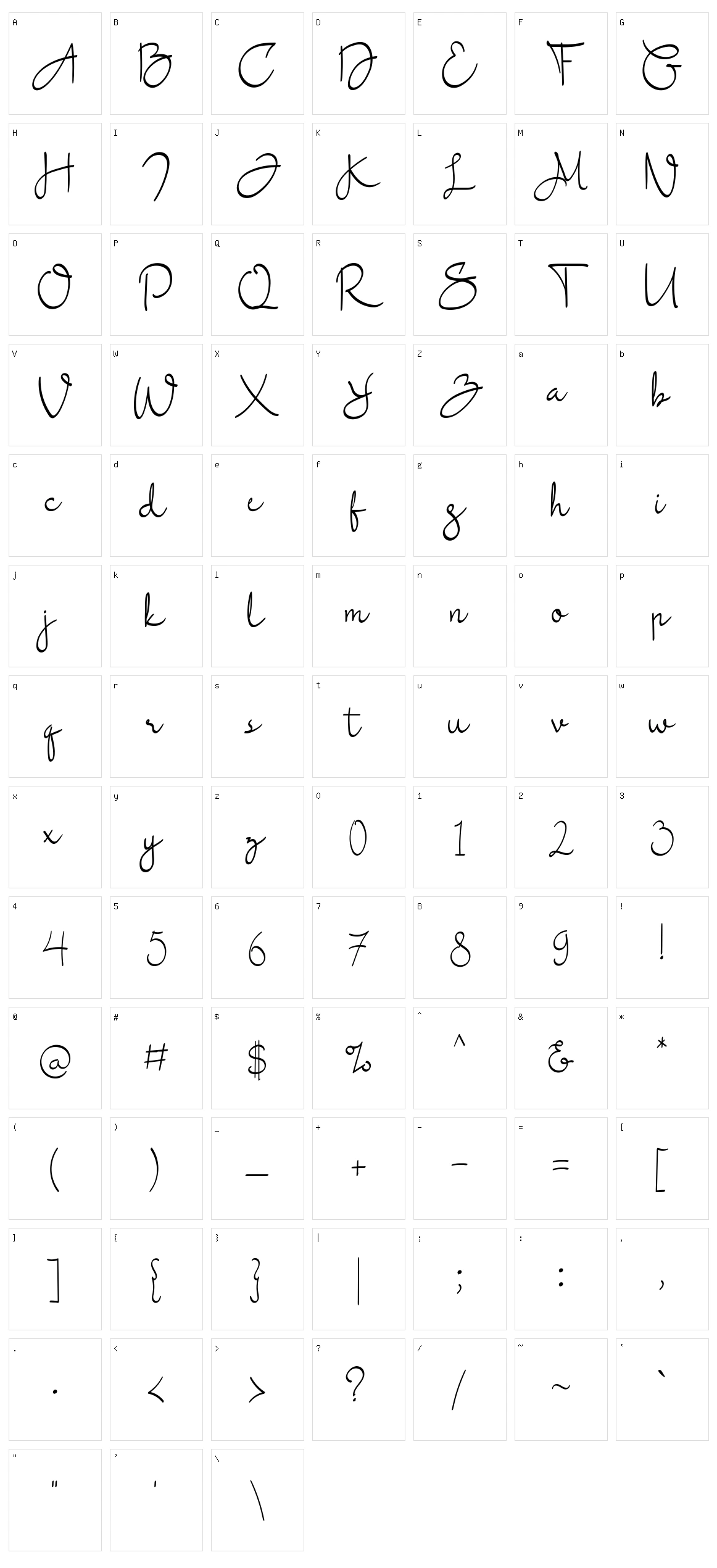
The free font Southernsky is carefully designed by Lemonthe, showcasing a thoughtful balance of creativity and usability and falls under the Script font style. When you download the ZIP file, it contains only 89.53 KB of font files, making it lightweight and quick to download. Please review the license details below to understand permitted usage and distribution rights. If license information is not available, we recommend using this font for personal projects only or contacting the author directly for commercial usage permissions.
Southernsky 2020 by Lemonthe